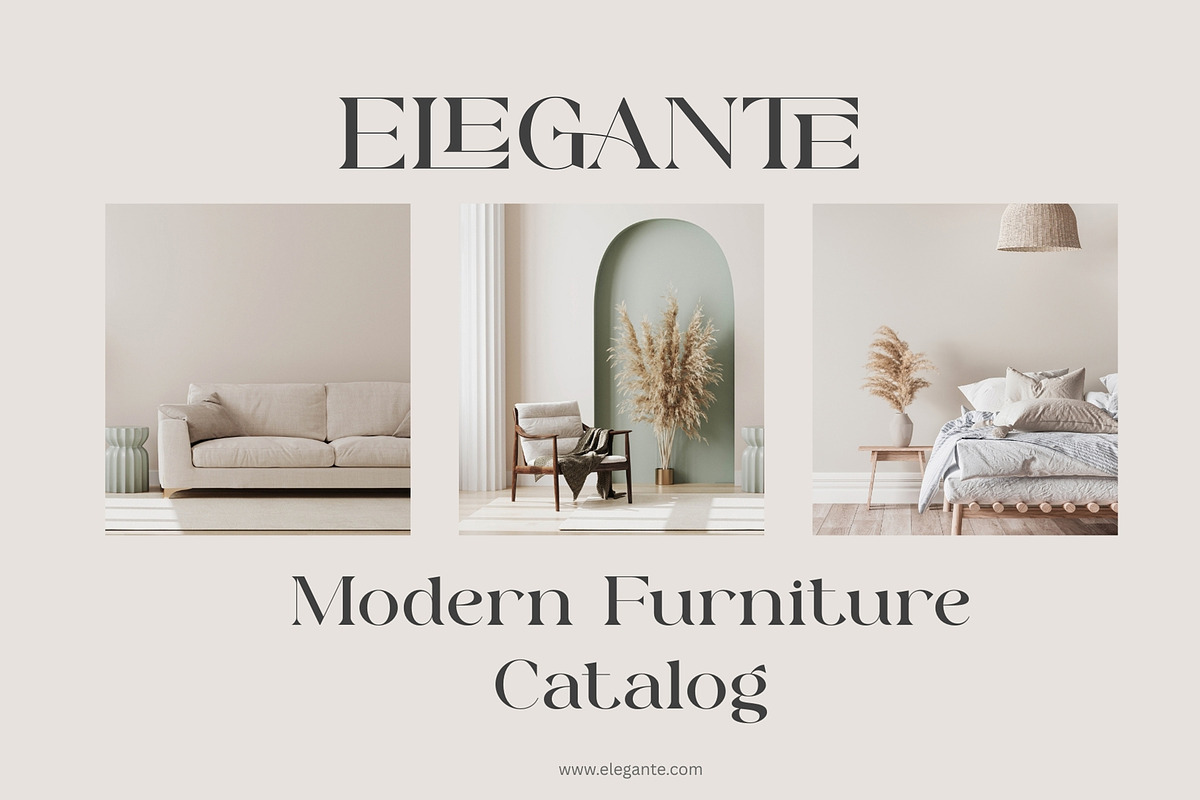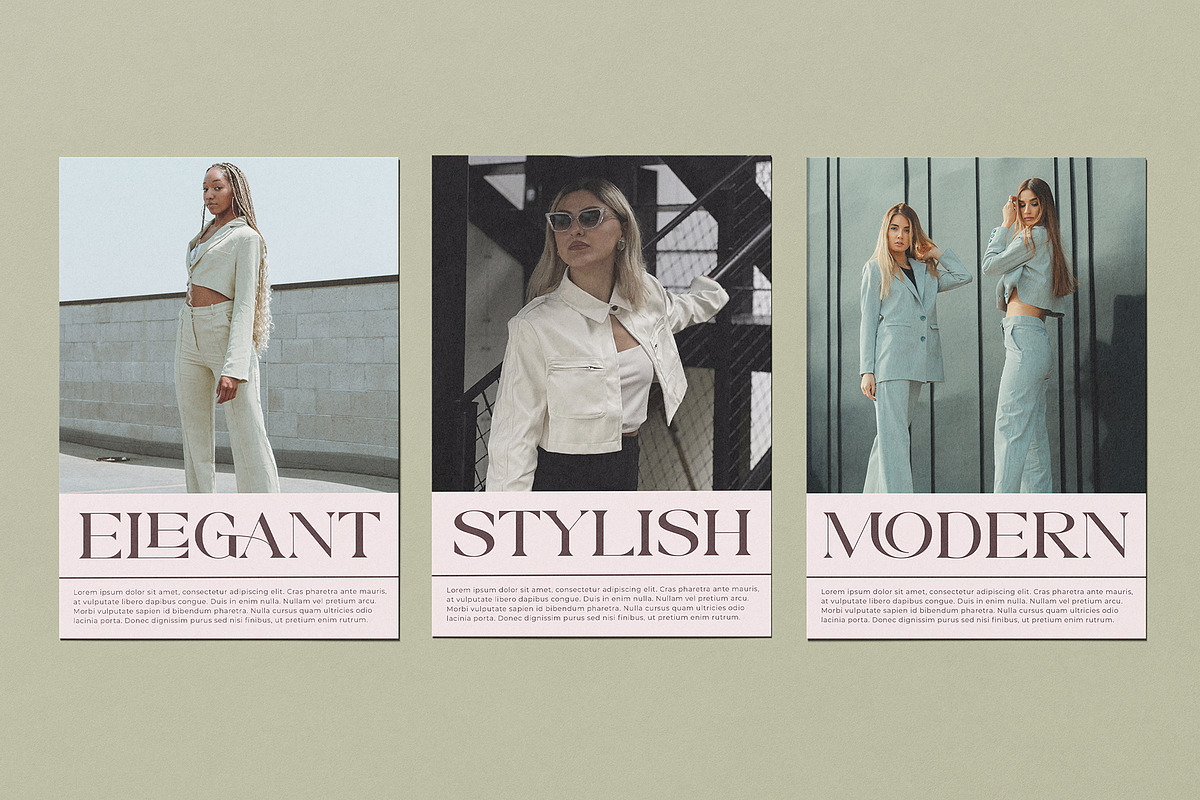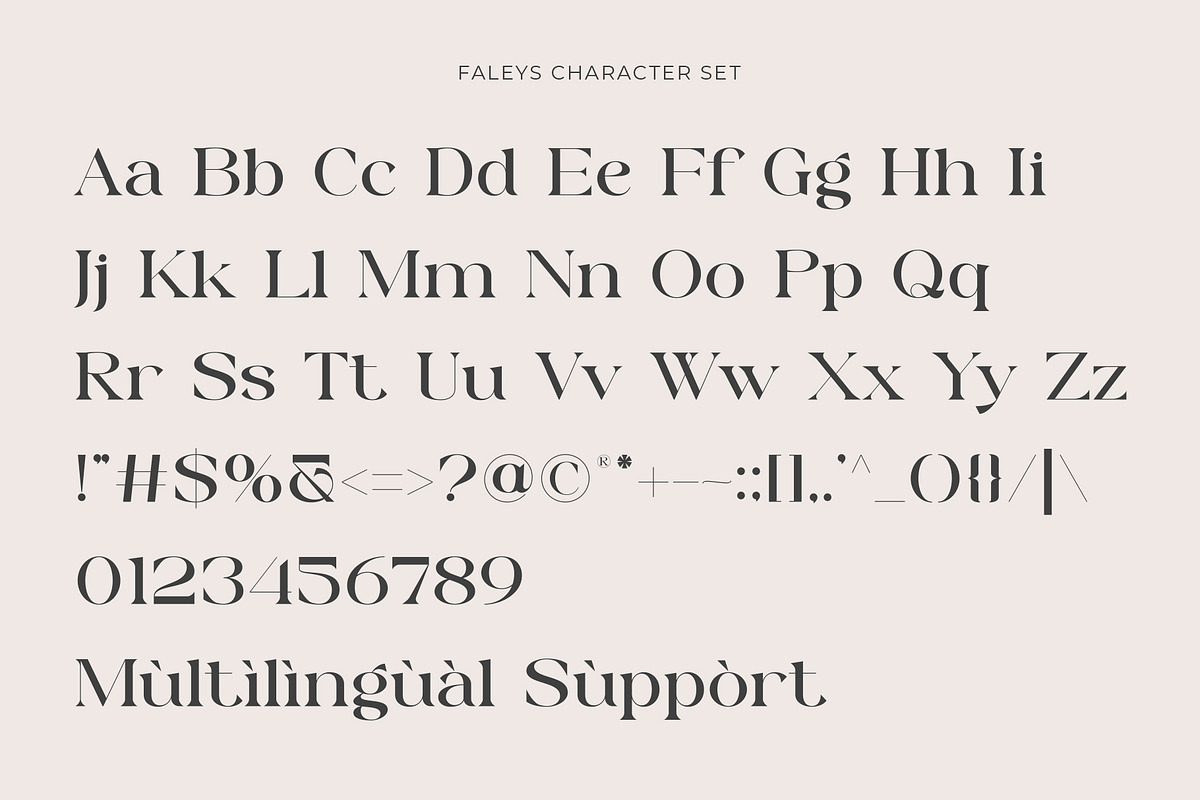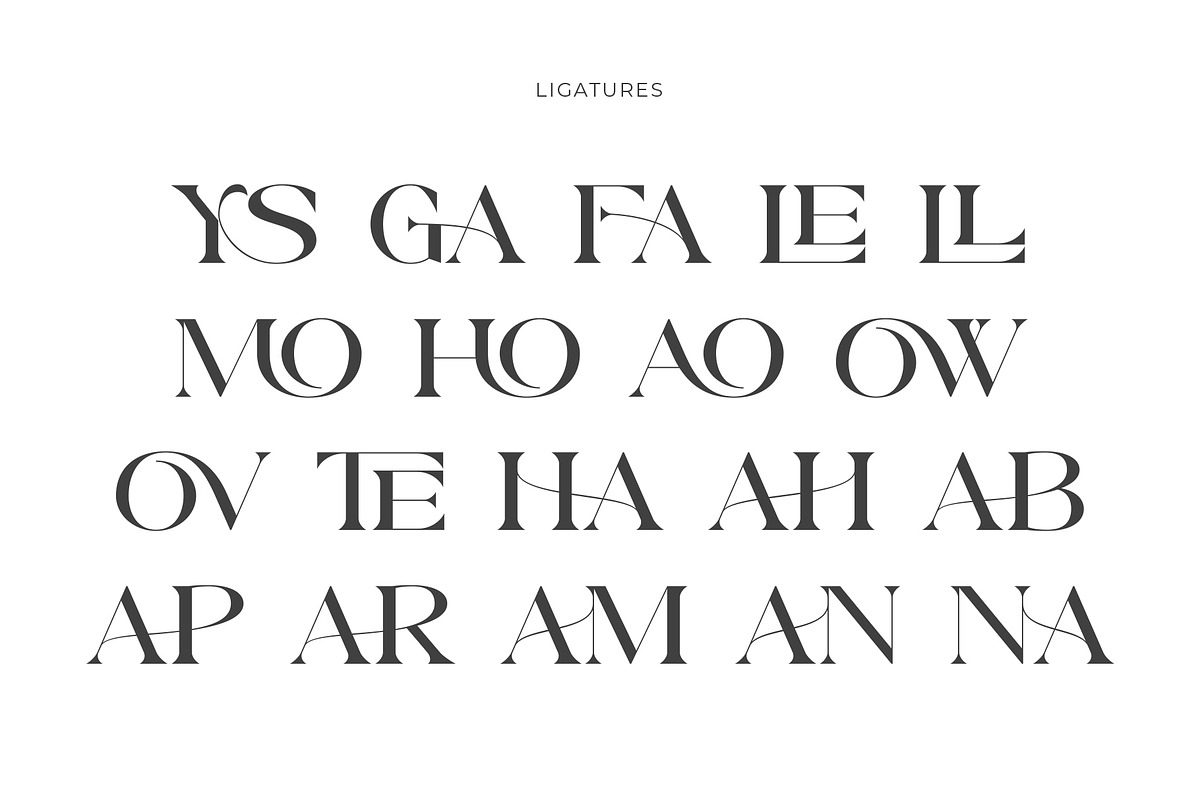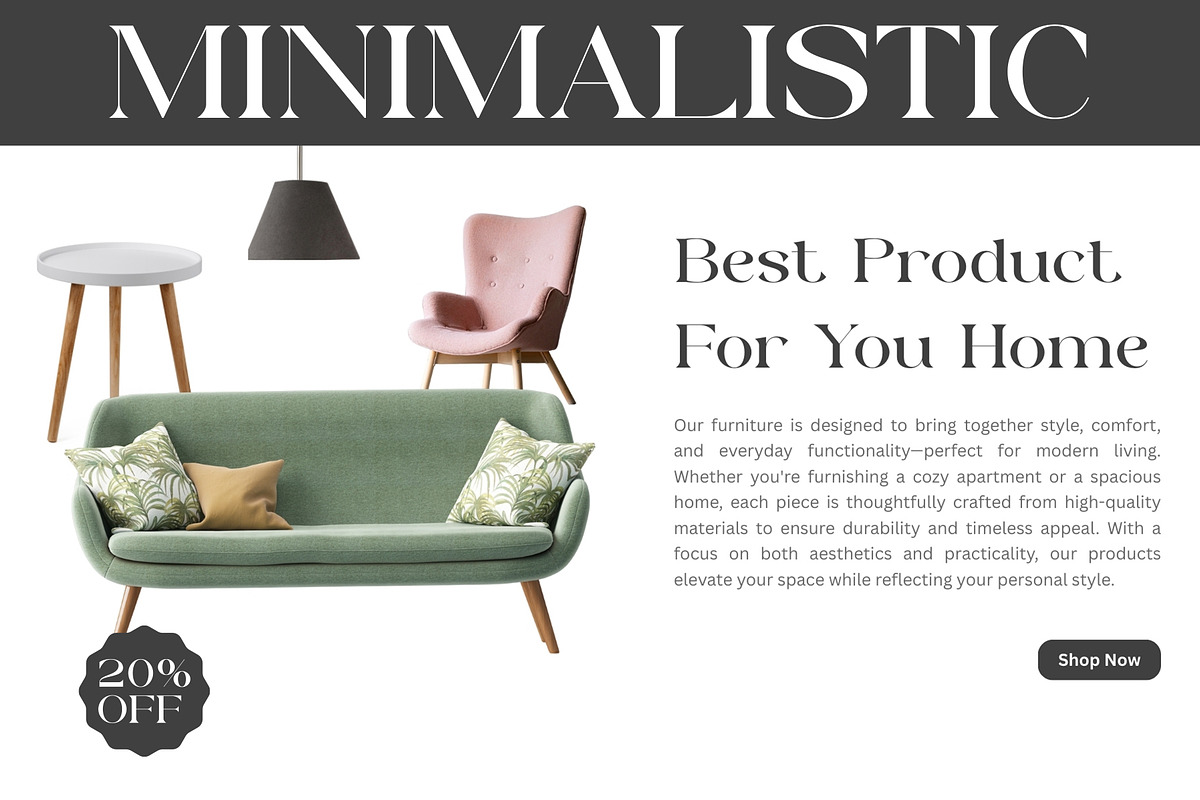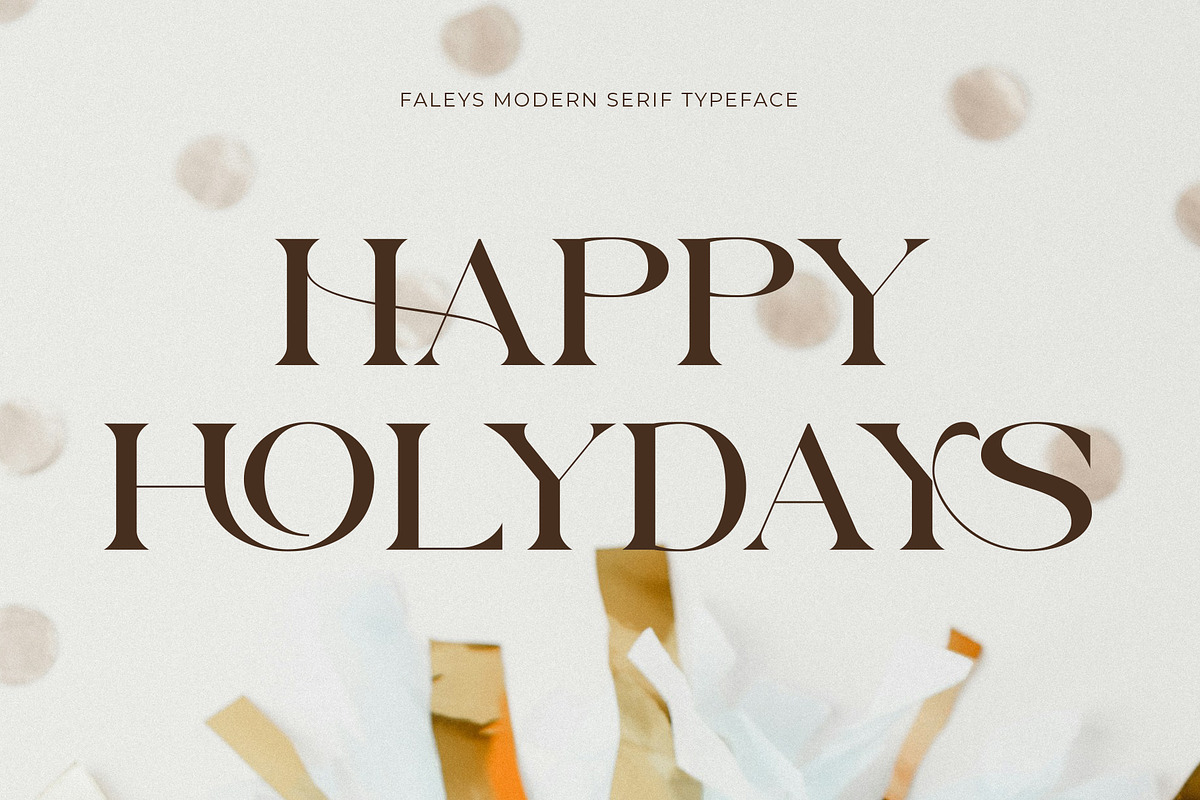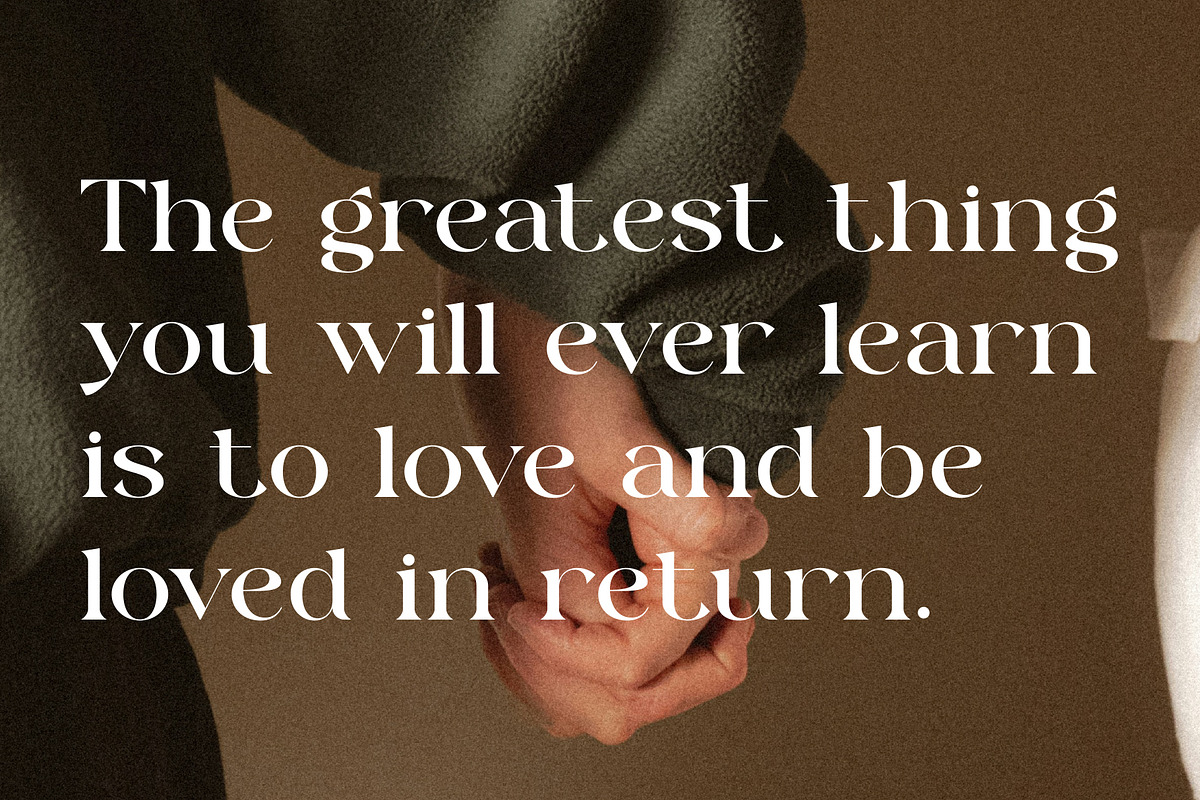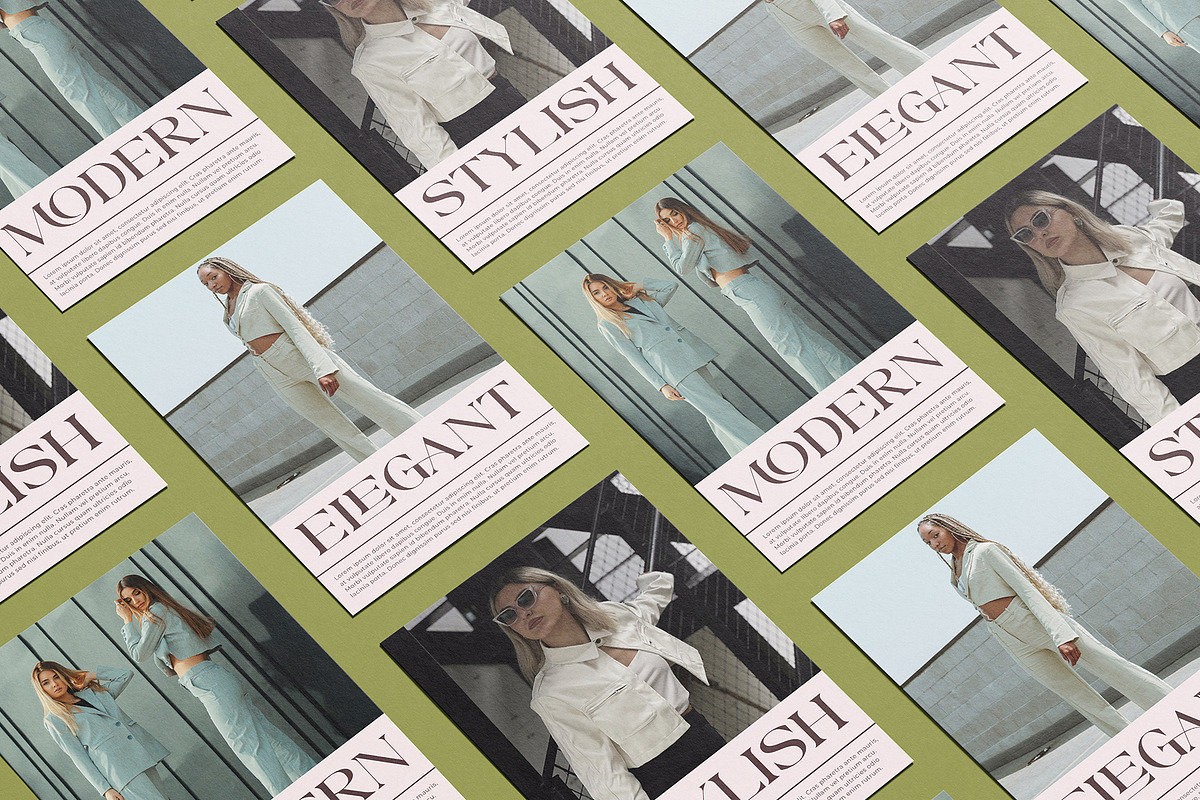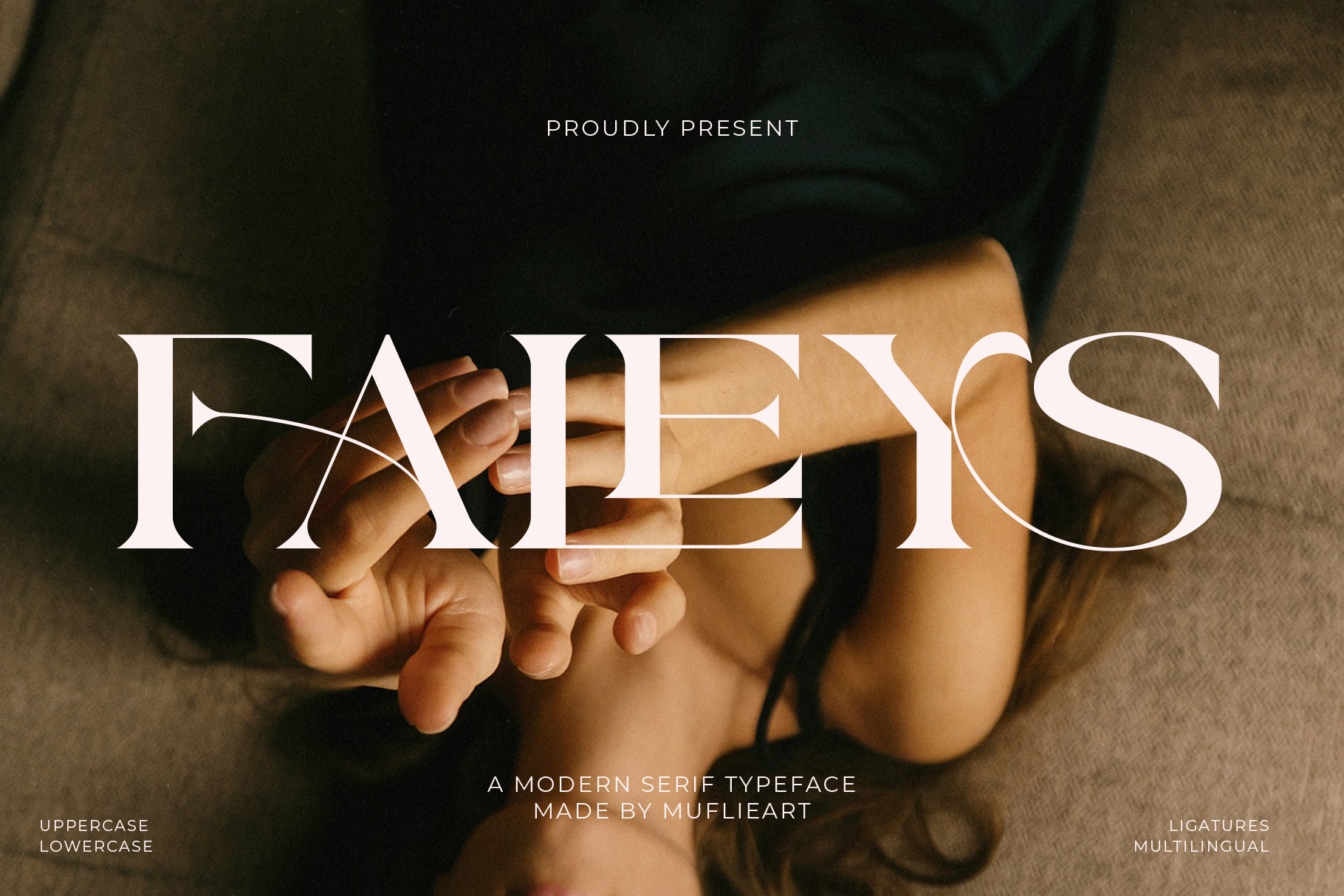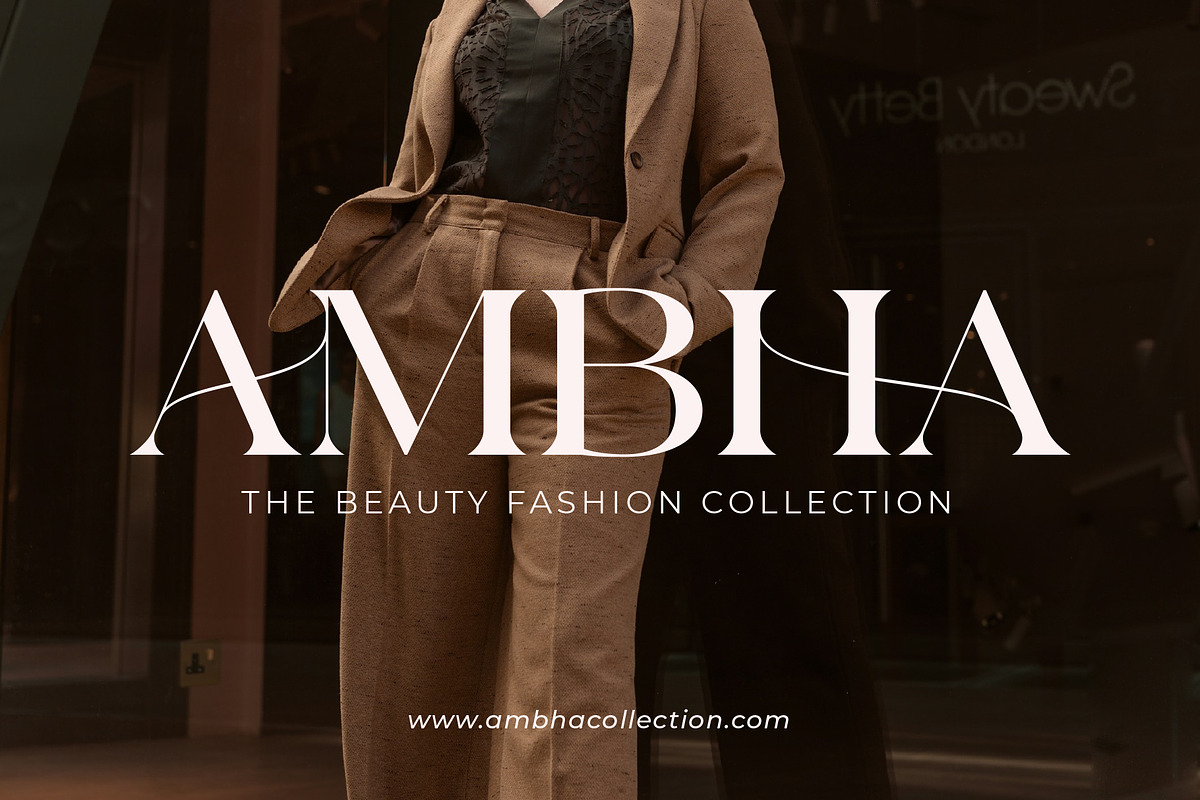
Faleys - Modern Serif Typeface
Introducing Faleys the elegant, beautiful, and display modern Serif. With its modern and minimalist look, Faleys brings a luxurious, classy, and clean style to your projects such as websites, modern logos, brand identities, social media quotes, wedding stationery, magazines, and more!
Faleys features unique and classy capital letters A to Z and also comes with unique alternates and ligatures making Faleys a beautiful font that can be customized for various projects and jobs you want.
Faleys is perfect for: logos, brands, wedding invitations, business cards, greeting cards, posters, magazines, social media, agenda prints, and websites.
- Uppercase and lowercase letters
- Multilingual Characters
- Alternative styles and ligatures (on some fonts)